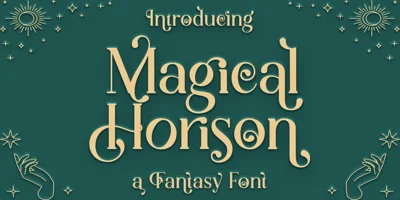
Magical Horison Font
Magical Horison Font is perfect for fantasy book covers, children's story illustrations, magical event invitations, fairy tale branding, mystical logo designs, enchanted wedding stationery, dreamy poster artwork, whimsical social media graphics, fantasy game interfaces, and ethereal packaging designs. Its enchanting character makes it ideal for projects that need to evoke wonder and imagination.
What makes Magical Horison Font exciting is its captivating blend of mystical elegance and readable functionality. The font features graceful curves and flowing letterforms that seem to dance across the page, creating an otherworldly atmosphere while maintaining excellent legibility. Its magical aesthetic transports viewers to fantastical realms, making every word feel like part of an enchanted story.
The Magical Horison Font family includes Regular, Bold, Light, Italic, Decorative, and Ornamental variations. Each style preserves the font's magical essence while offering different levels of visual impact and decorative elements. The extensive glyph set includes special magical symbols, decorative flourishes, and multilingual support for international fantasy projects.
Designers and creative professionals consistently choose Magical Horison Font for projects requiring enchanting typography solutions. The font's mystical appearance eliminates the need for complex decorative elements, allowing the typography itself to create the magical atmosphere. Its versatility makes it suitable for both subtle applications and bold fantasy statements.
Whether you're crafting children's books, designing magical event materials, or creating fantasy brand identities, Magical Horison Font delivers exceptional visual impact. The font's carefully balanced letterforms ensure readability across various sizes while maintaining its enchanting character from headlines to body text applications.
The distinctive charm of Magical Horison Font extends beyond traditional print applications into digital gaming interfaces, mobile app designs, and interactive storytelling platforms. Its scalable design ensures consistent magical appeal across different media formats and screen resolutions.
Experience the wonder of Magical Horison Font and transform your creative projects with typography that captures the essence of magic and fantasy. This extraordinary typeface brings dreams to life through beautifully crafted letters that inspire imagination and create lasting impressions.